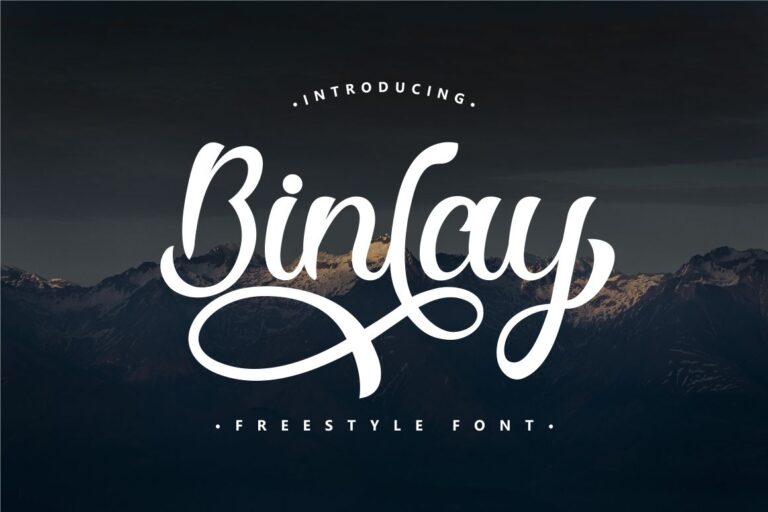
Best Trendy Fonts 2026 for Designers, Entrepreneurs, and Creative Brands
Typography is entering one of its most expressive eras in recent years. After nearly a decade dominated by strict geometric sans-serifs and ultra-minimal branding, trendy fonts 2026 are moving toward warmer, more human, and emotionally engaging typefaces. Designers are embracing expressive editorial serifs, organic handwritten styles, nostalgic retro lettering, Y2K aesthetics, futuristic display fonts, and bold experimental typography to help brands stand out in an increasingly crowded digital landscape. Recent typography analyses consistently identify a shift away from rigid geometric minimalism toward softer, more distinctive, and personality-driven type systems.
The biggest trend isn’t simply choosing decorative fonts. Instead, designers are selecting typography that tells stories, builds emotional connections, and reflects authentic brand identities. Modern consumers increasingly respond to brands that feel human rather than overly corporate, making typography one of the most influential branding decisions in 2026. Even AI companies have begun adopting warmer serif typography to appear more trustworthy and approachable.
Whether you’re designing a beauty brand, gaming startup, editorial magazine, lifestyle product, fashion label, or digital portfolio, understanding typography trends will help your work remain relevant while creating memorable visual identities.
Initial Suggestion
Before following trendy fonts, remember that trends should support your brand rather than define it.
Choose Fonts That Match Your Brand
Different typography trends work best for different industries.
Examples:
• Editorial serif fonts for luxury and beauty.
• Groovy retro fonts for lifestyle and food brands.
• Futuristic fonts for gaming and technology.
• Handwritten fonts for artisan products.
• Experimental display fonts for creative agencies.
Prioritize Personality Over Popularity
The best typography doesn’t simply follow trends. It reinforces your message and audience expectations.
Think About Long-Term Branding
Ask yourself:
• Will this font still feel relevant in two years?
• Can it scale across print and digital?
• Does it reflect the brand personality?
Mix Trendy Display Fonts with Functional Text Fonts
Use expressive fonts for headlines and pair them with clean supporting typography for readability.
1. Binlay
Binlay perfectly represents one of the strongest typography movements of 2026: expressive handwritten branding. Unlike traditional scripts that focus purely on elegance, Binlay feels energetic, authentic, and contemporary. The flowing strokes create personality without sacrificing readability, making it highly versatile for branding, packaging, portfolio websites, and social media. As brands move toward more human-centered identities, handwritten fonts like Binlay continue gaining popularity across lifestyle, fashion, hospitality, and creative industries.
Pros
• Natural handwritten personality
• Modern branding appeal
• Excellent readability
• Highly versatile
• Lifestyle branding
• Creative portfolios
• Hospitality brands
• Fashion labels
• Personal branding
• Product packaging
2. Techno Wave – Y2K Trendy Font
Y2K aesthetics continue gaining momentum in 2026, especially among Gen Z-focused brands. Techno Wave embraces metallic curves, futuristic geometry, and nostalgic digital influences that recall early internet culture while feeling modern. It helps brands communicate innovation, energy, and digital creativity without appearing outdated.
Pros
• Strong Y2K personality
• Eye-catching futuristic style
• Highly memorable
• Perfect trend alignment
• Gaming brands
• Music festivals
• Technology startups
• Fashion campaigns
• Digital products
• Youth branding
3. Funky Sign – Groovy Hipster Font
Retro-inspired typography remains one of the biggest design movements of 2026. Funky Sign combines 70s-inspired curves with contemporary balance, creating typography that feels nostalgic while remaining commercially relevant. It instantly brings warmth and optimism into branding.
Pros
• Groovy retro aesthetic
• Friendly personality
• Strong visual identity
• Excellent headline font
• Coffee brands
• Food packaging
• Lifestyle products
• Creative agencies
• Event branding
• Boutique businesses
4. Spectrum Spiral – Retro Wave Trendy Font
Spectrum Spiral introduces movement, rhythm, and psychedelic influences into modern typography. The flowing curves and retro-wave inspiration create dynamic visual compositions that stand out in digital environments. This font reflects the growing popularity of expressive display typography in editorial, entertainment, and fashion branding.
Pros
• Strong retro-wave identity